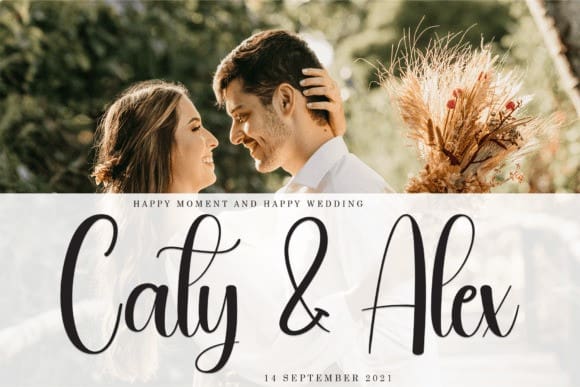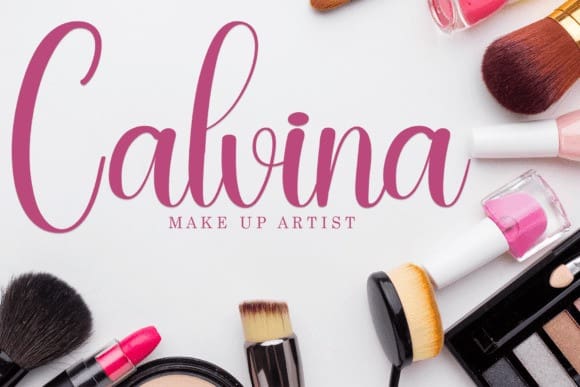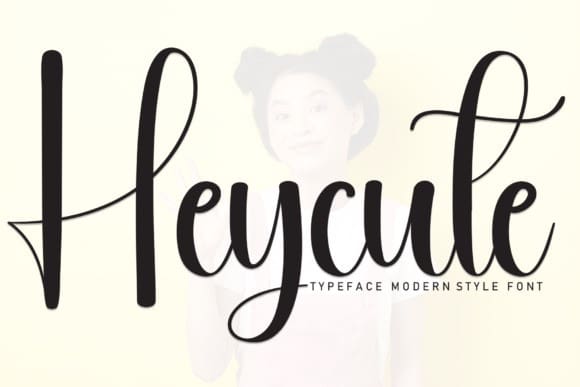
Heycute Script Font
Heycute Script Font is a sweet and friendly handwritten font. Fresh and neat, this font is ideal for writing wedding invitations, cards, or any other design that might need a fun touch.